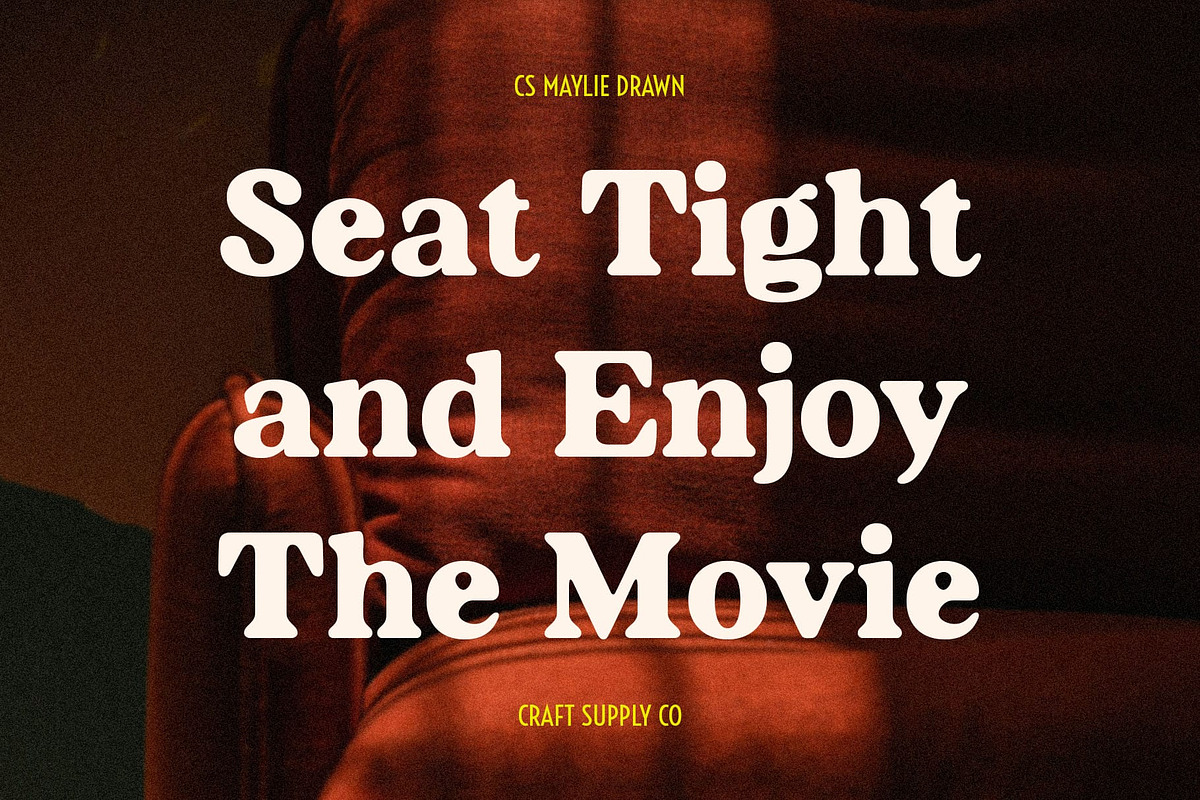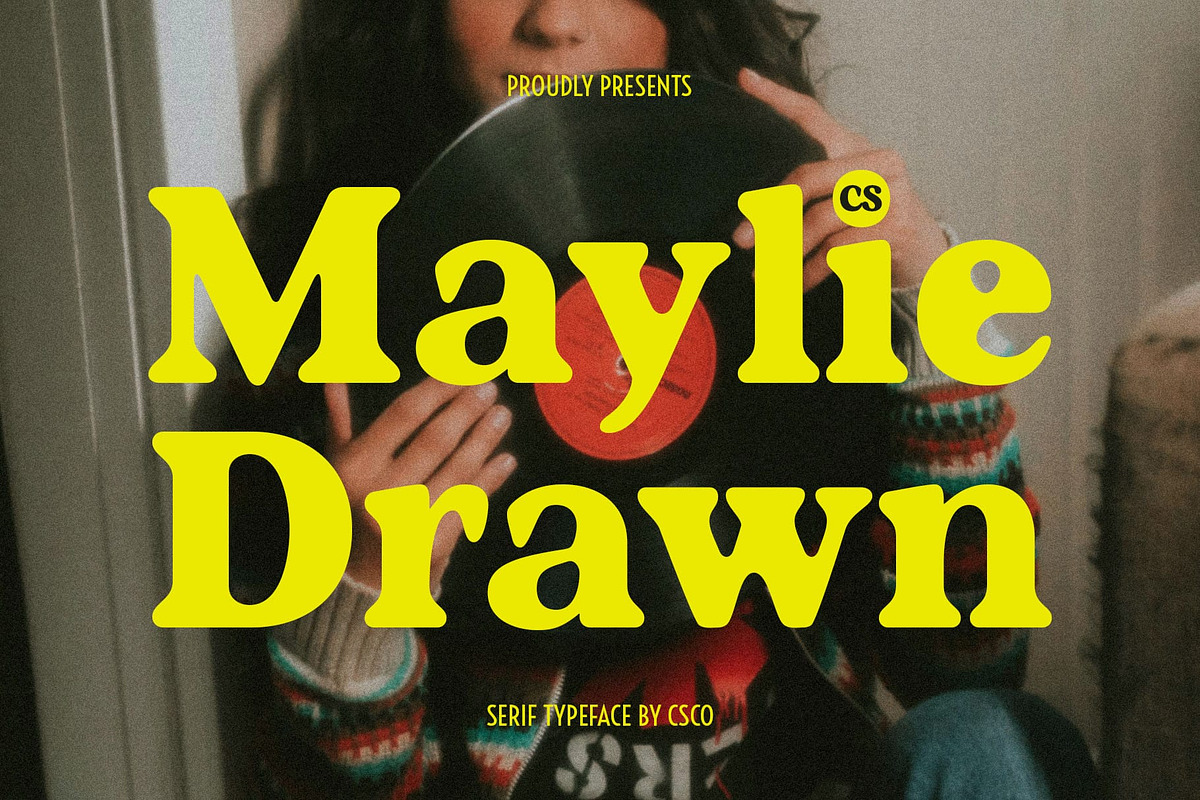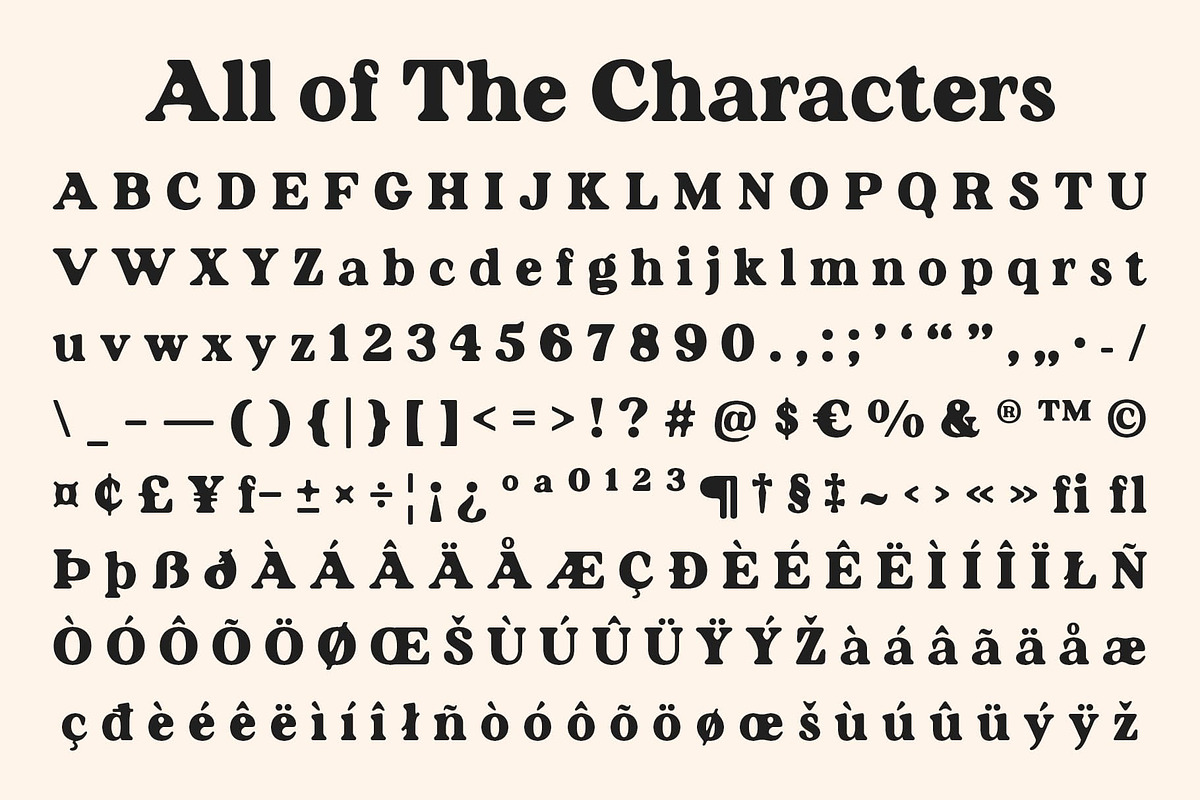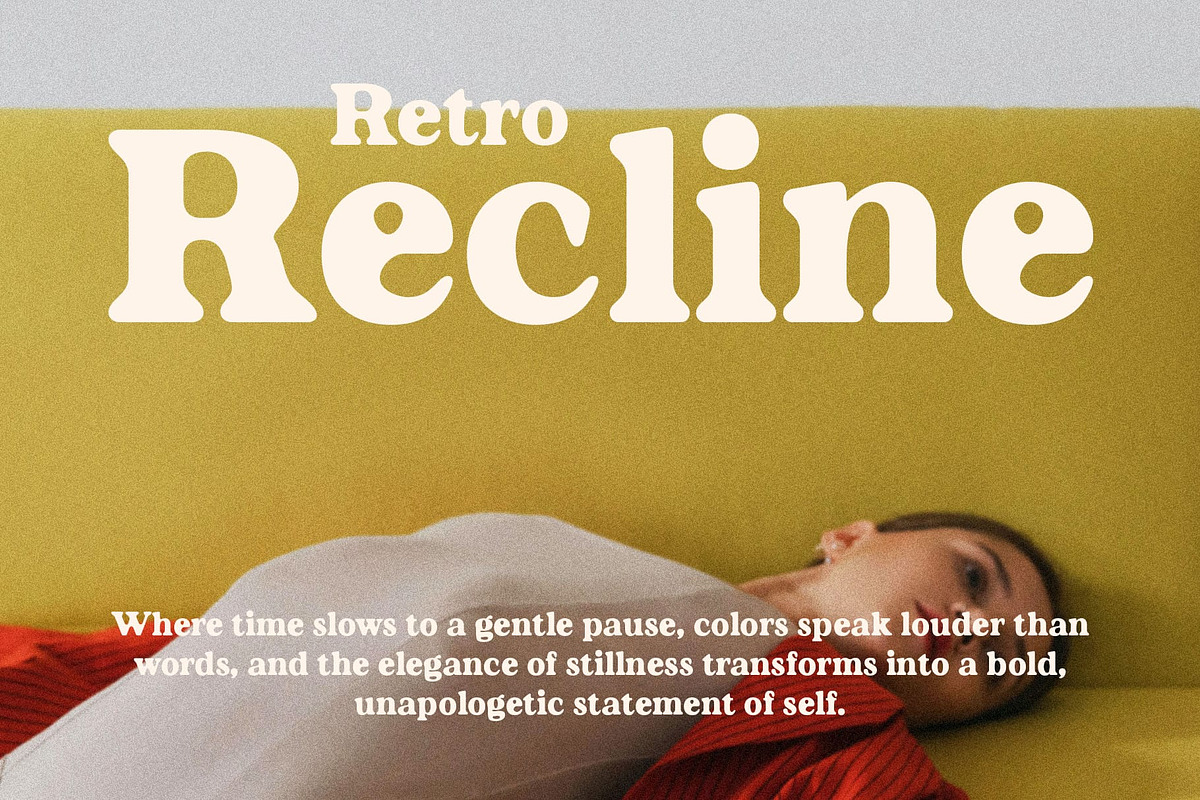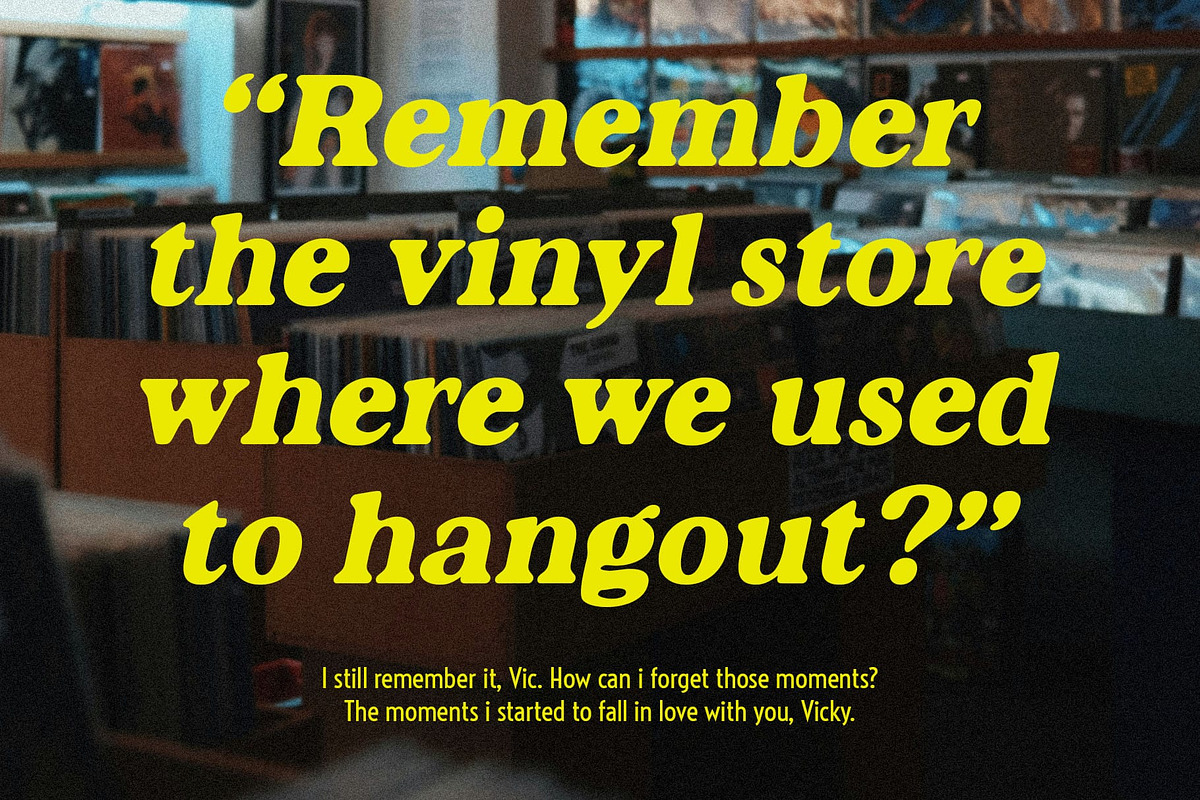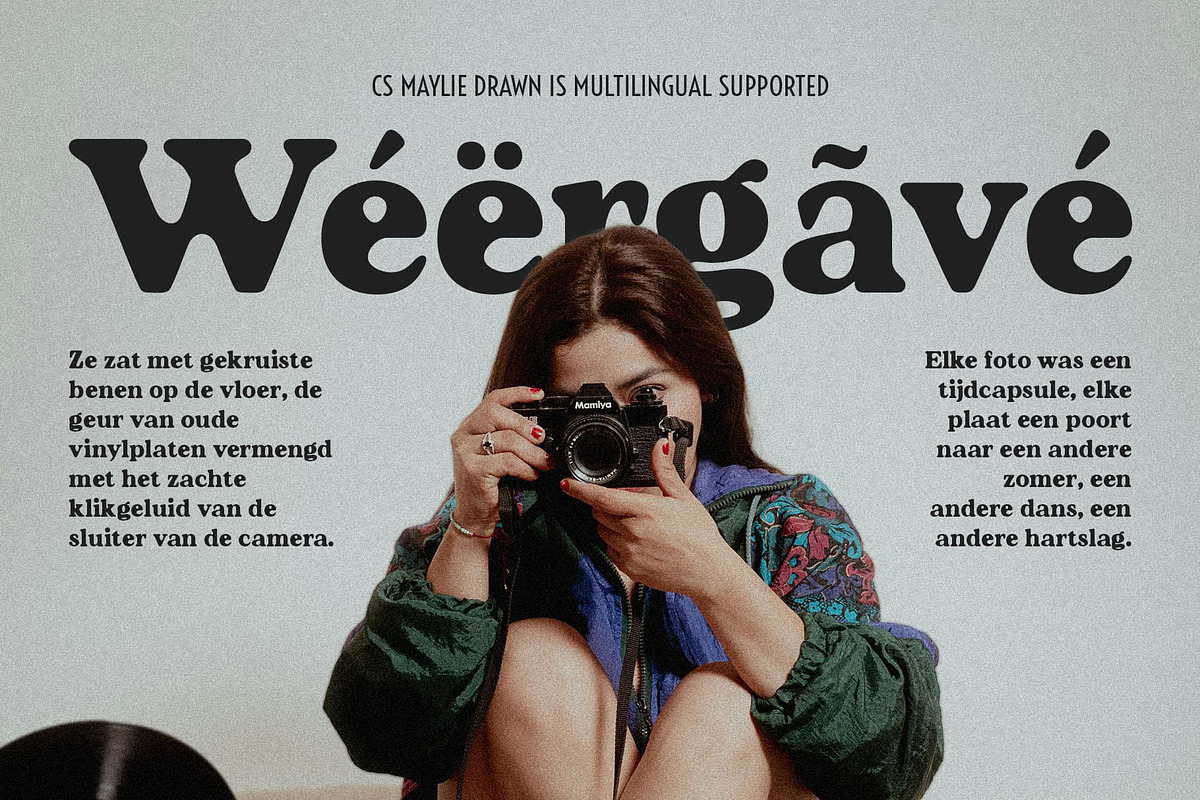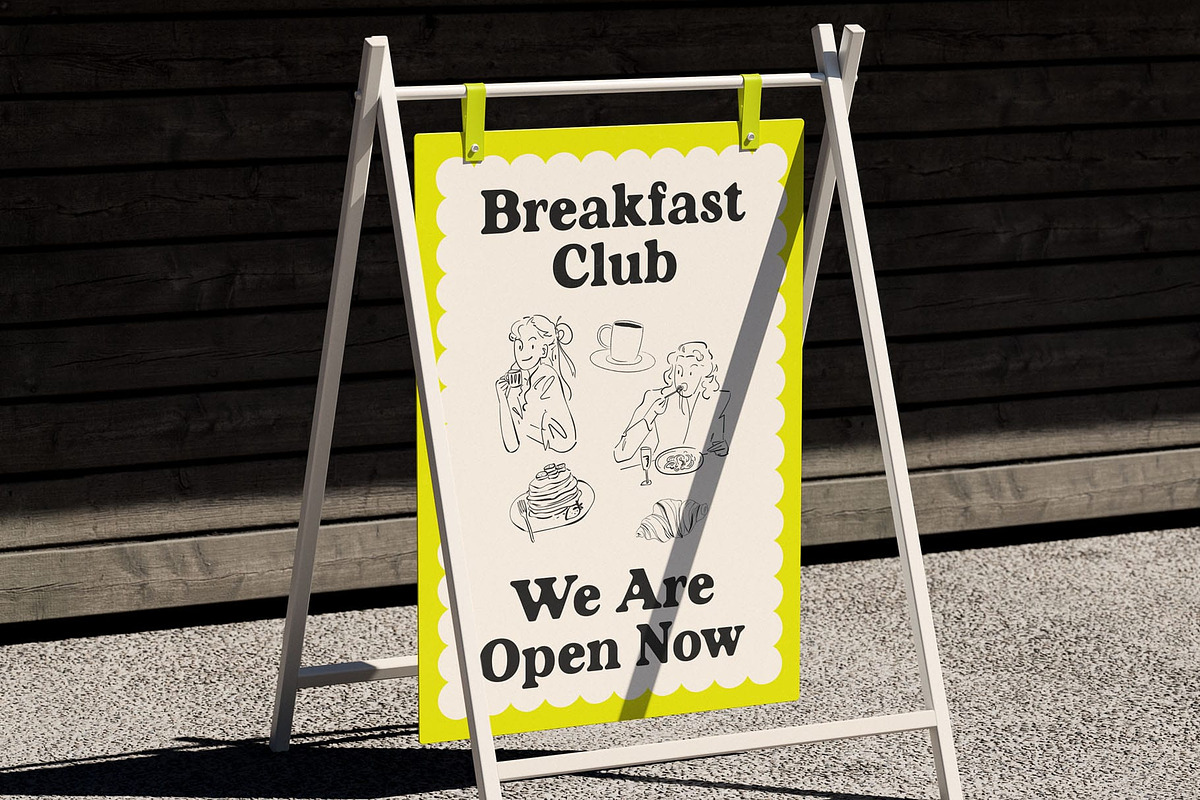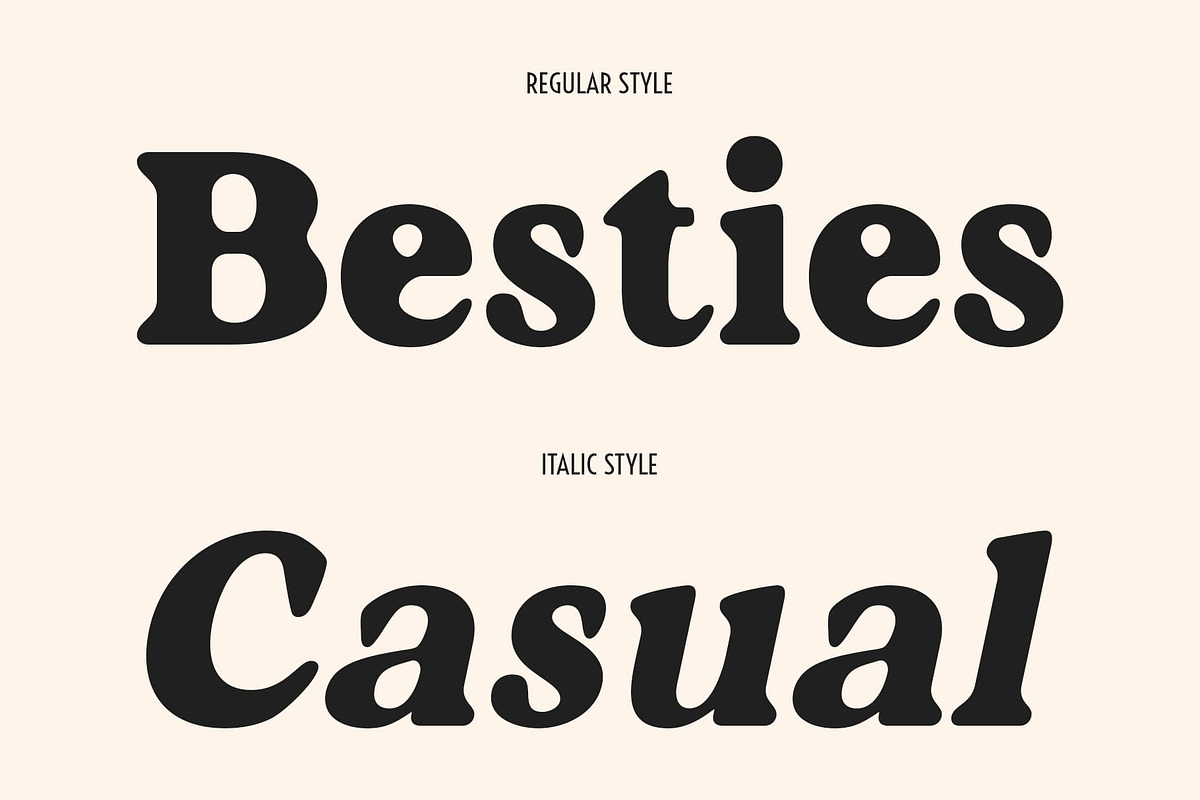
CS Maylie Drawn
CS Maylie Drawn – Bold, Funky, and Playfully Retro
Funky 90s Retro Style CS Maylie Drawn is a classic serif font featuring bold, rounded letterforms that radiate a playful and cheerful 90s retro vibe. Its fun, approachable style brings energy and character to every design, making it perfect for projects that want to stand out with a nostalgic yet fresh appeal.
Handmade Charm with Artistic Texture Enhanced with a subtle drawn effect, each letter carries a handcrafted touch that adds creativity and expressiveness. The combination of bold shapes, rounded ends, and textured details gives the font a lively, artistic personality that feels both fun and distinctive.
Perfect for Playful and Creative Designs Ideal for posters, packaging, branding, editorial layouts, or social media graphics, this artistic font communicates cheerfulness and individuality. Its retro-inspired aesthetic works beautifully in projects that aim to be memorable, energetic, and visually engaging.
Versatile and Expressive Whether used in headlines, logos, or decorative compositions, this youthful font not only balances readability with playful flair but also adds artistic charm to any design. Moreover, its bold presence and intricate details make it a versatile choice for designers.
A Typeface That Radiates Fun and Creativity By blending bold retro forms, rounded edges, and a hand-drawn artistic touch, this whimsical and energetic font delivers a distinctive typographic voice. It’s perfect for designers seeking a playful, cheerful, and memorable visual statement.